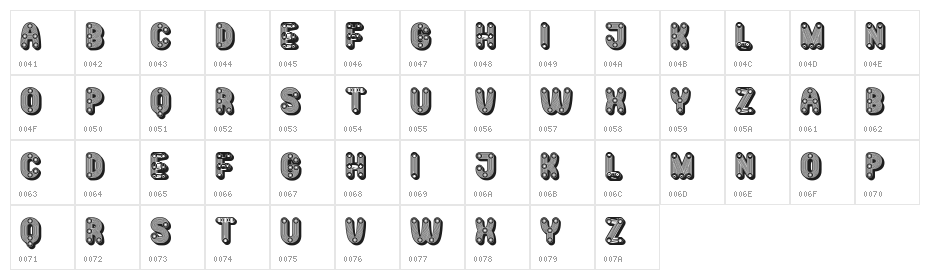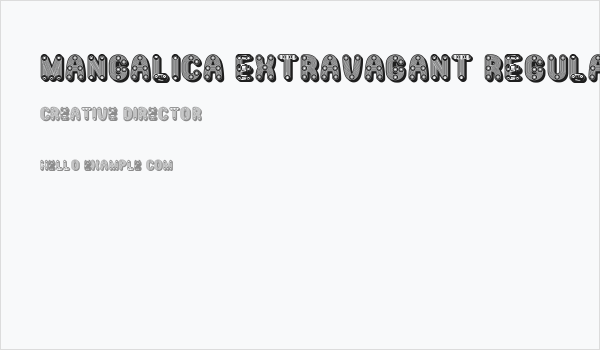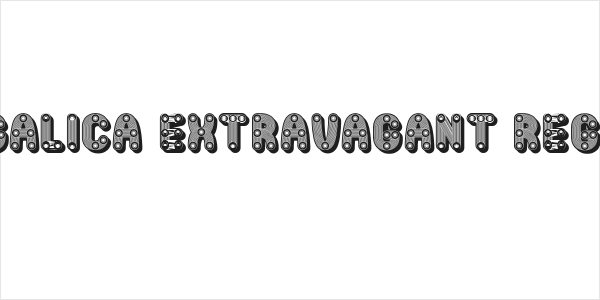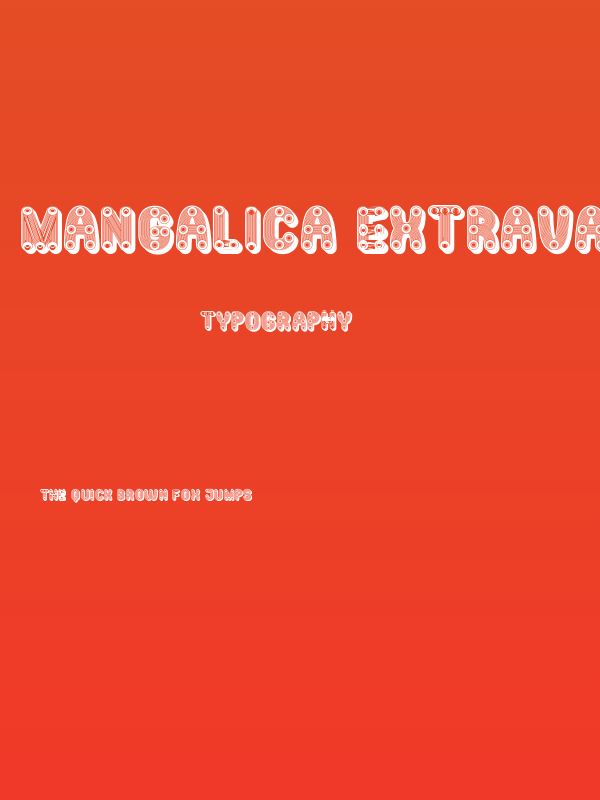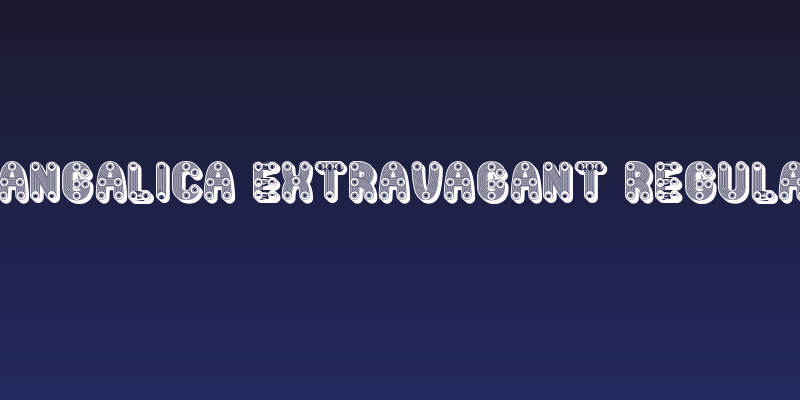
Mangalica Extravagant Regular Font
Mangalica Extravagant Regular Description
This font is a bold and decorative typeface that features a unique, playful design. Each character is adorned with intricate patterns and dots, giving it a three-dimensional appearance. The letters are rounded and have a substantial presence, making them stand out in any design. The style is reminiscent of retro or vintage aesthetics, with a modern twist that adds a touch of whimsy. The font's elaborate detailing makes it suitable for eye-catching headlines or creative projects where a bold statement is needed. Its intricate design may not be ideal for body text but excels in decorative applications.
| Proposed Projects | Ideal for posters, logos, event invitations, and any project requiring a bold, decorative typeface. |